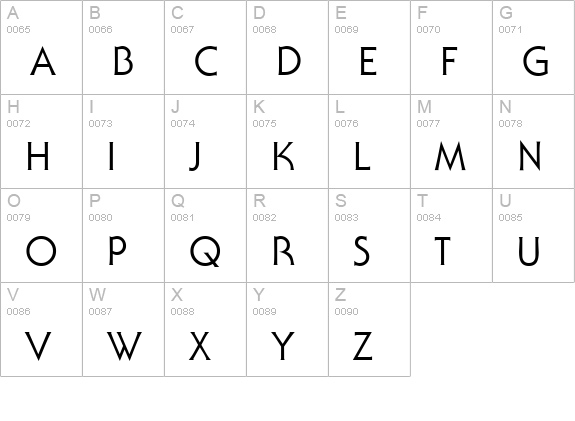
SerenadeTwo-Regular is the standard, neutral variant in the SerenadeTwo typeface family \xE2\x80\x94 well suited to general body text, paragraphs, and standard typographic work.
SerenadeTwo-Regular is a beautifully crafted font that exudes elegance and sophistication. With its delicate curves and graceful strokes, this font is perfect for adding a touch of refinement to any design project. Whether you're working on invitations, logos, or branding materials, SerenadeTwo-Regular will elevate your work to the next level. What's even better is that SerenadeTwo-Regular is available for free download at FontsMarket.com. This means you can easily access this stunning font without any cost, making it a valuable addition to your font library. Don't miss out on the opportunity to enhance your designs with the timeless beauty of SerenadeTwo-Regular. Download it today and start creating stunning visuals that truly stand out.